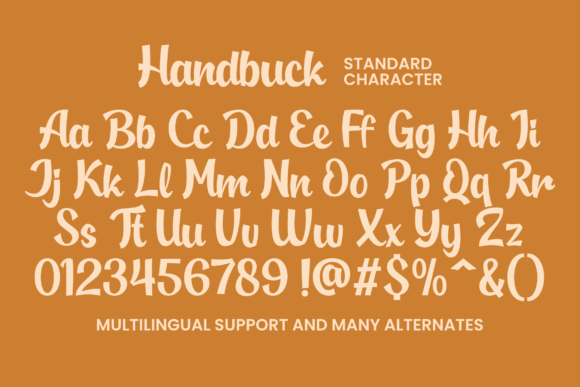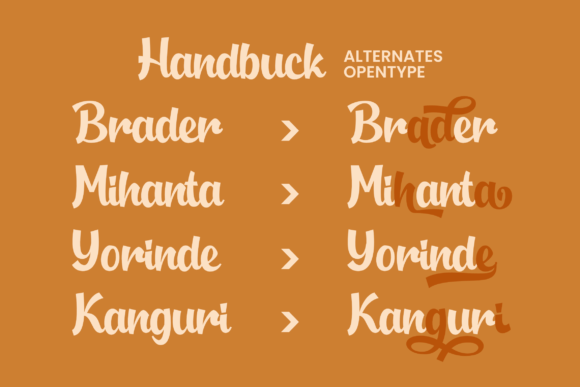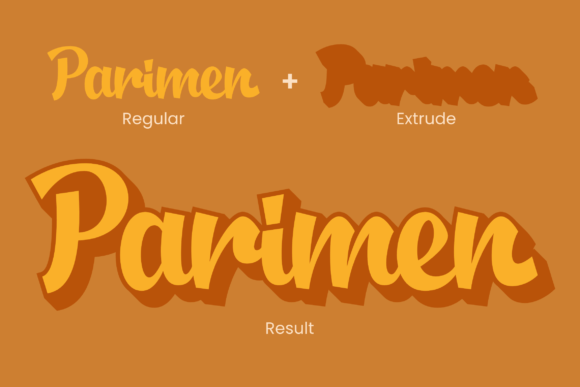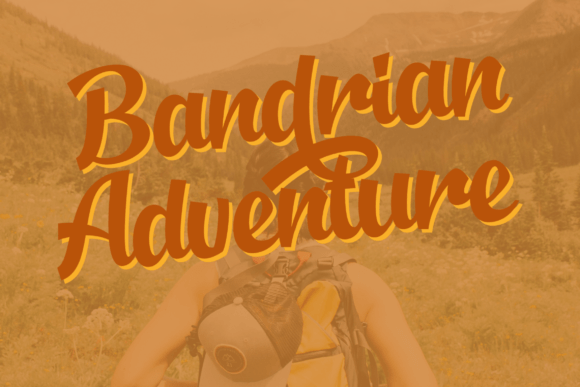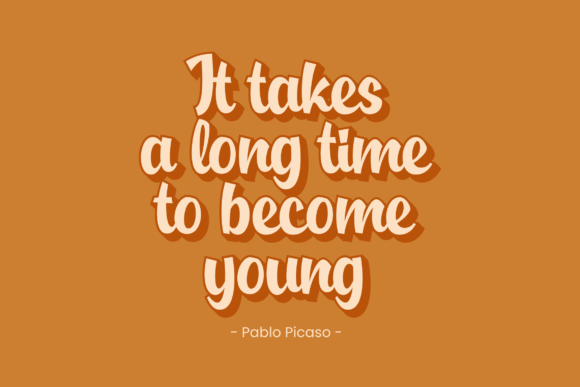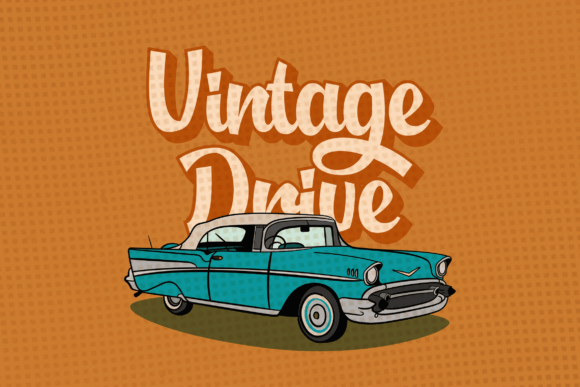
Introducing Handbuck Font: The Ultimate Display Script for Modern Design
Are you looking for a font that combines classic elegance with modern flair? Look no further than Handbuck Font, a stunning display script font that is sure to elevate your design game. In this article, we’ll dive into the features and benefits of Handbuck Font, and explore how it can be used to create beautiful and effective designs.
A Unique Blend of Classic and Modern Design Elements
Handbuck Font is a masterful blend of classic and modern design elements, creating a unique and stylish typeface that is perfect for a wide range of design applications. The font’s classic roots are evident in its elegant letterforms and flowing script style, while its modern twist is seen in its bold and eye-catching design. This blend of old and new makes Handbuck Font a versatile and timeless choice for designers.
Handbuck Font is perfectly suited for a wide range of design applications, including logos, invitations, labels, magazines, books, greeting cards, wedding cards, packaging, fashion, makeup, stationery, novels, and more. Whether you’re creating a formal invitation or a bold advertising campaign, Handbuck Font is the perfect choice. Its elegant and sophisticated design makes it ideal for formal applications, while its bold and modern style makes it perfect for more creative and artistic projects.
One of the standout features of Handbuck Font is its PUA (Private Use Area) encoding. This means that you can access all of the font’s amazing glyphs and ligatures with ease, giving you even more creative possibilities. With Handbuck Font, you can add an extra layer of depth and interest to your designs, making them truly stand out from the crowd.
Key Features of Handbuck Font
- Stunning display script font: Handbuck Font is a beautiful and elegant display script font that is perfect for headlines, titles, and other display text.
- Classic and modern design elements: Handbuck Font seamlessly blends classic and modern design elements to create a unique and stylish typeface.
- PUA encoded: Handbuck Font is PUA encoded, making it easy to access all of the font’s glyphs and ligatures.
- Perfect for a wide range of design applications: Handbuck Font is suitable for a wide range of design applications, including logos, invitations, labels, magazines, books, and more.
Tips for Using Handbuck Font
Here are a few tips for getting the most out of Handbuck Font:
- Use it as a headline font: Handbuck Font is perfect for use as a headline font, where its bold and eye-catching design can really make an impact.
- Experiment with different colors and textures: Handbuck Font looks great in a variety of colors and textures, so don’t be afraid to experiment and find the perfect combination for your design.
- Pair it with other fonts: Handbuck Font pairs well with a wide range of other fonts, so feel free to get creative and find the perfect combination for your design.
In conclusion, Handbuck Font is a stunning display script font that is perfect for designers and crafters looking to add a touch of elegance and sophistication to their designs. With its unique blend of classic and modern design elements, PUA encoding, and versatility, Handbuck Font is the perfect choice for a wide range of design applications. So why wait? Download Handbuck Font today and start creating beautiful and effective designs!